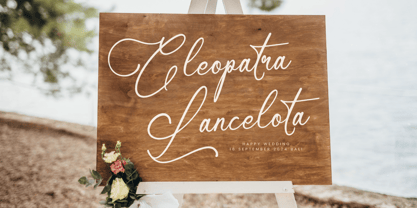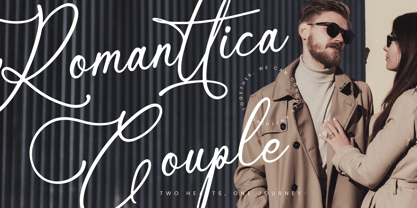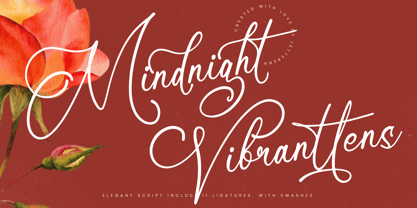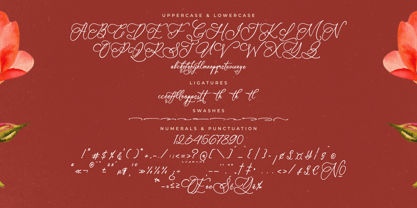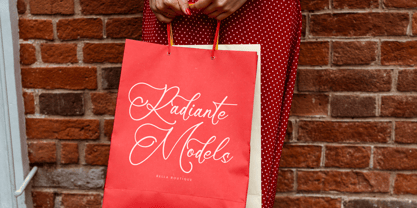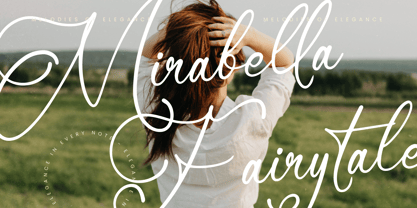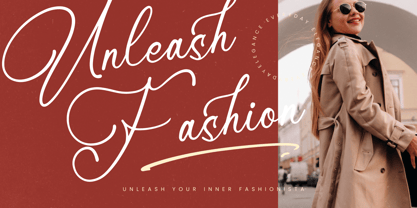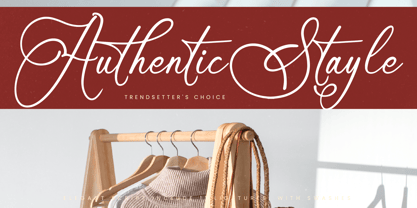
Mindnight Vibranttens
by Letterena Studios
The Mindnight Vibranttens Font Family was designed by Heru Utama Putra and published by Letterena Studios. Mindnight Vibranttens contains 2 styles and family package options. More about this family
Mindnight Vibranttens is a modern and charming handwritten font that exudes elegance and personality. Its graceful, flowing strokes and sophisticated character make it perfect for upscale invitations, personal branding, and chic editorial designs. Elevate your projects with the refined allure and warmth of this font.